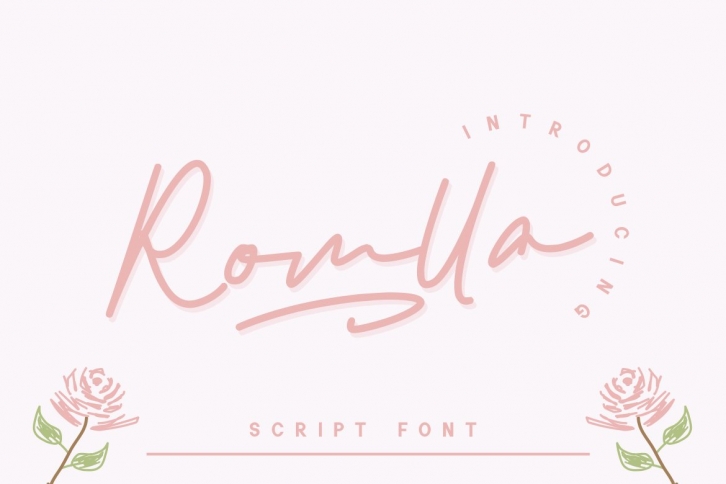
Romlla is a beautiful font that was designed by GFR creative. It's a great choice for designers and creatives who need such a font. It was released on September 24, 2022 and the file size is 20.1 MB. Romlla may give a more youthful, expressive and casual look to your project. It is a very beautiful, refined, elegant, and high-quality font.